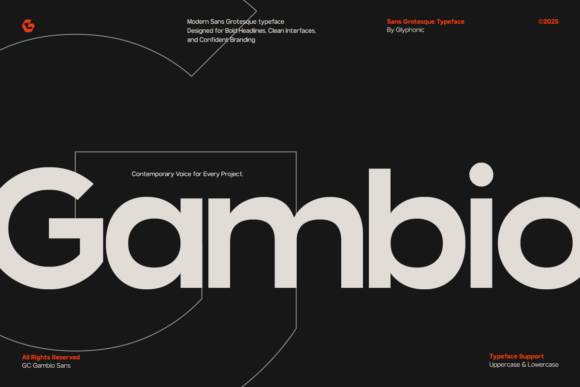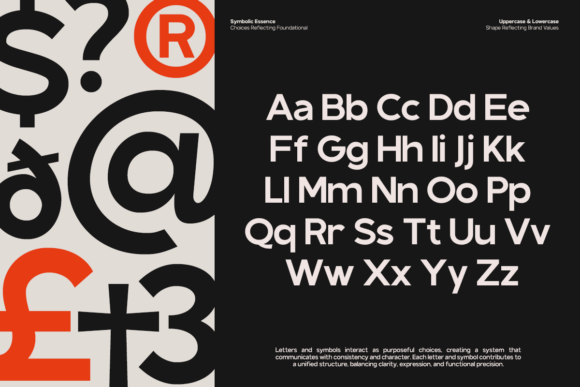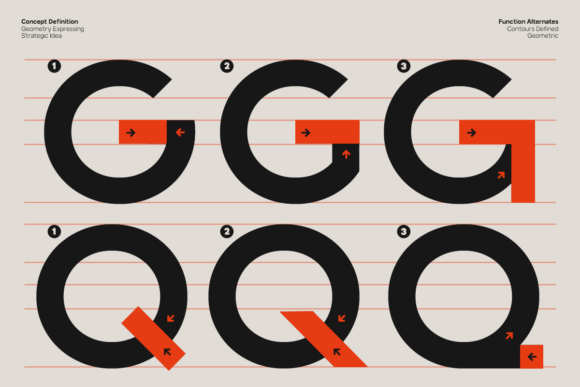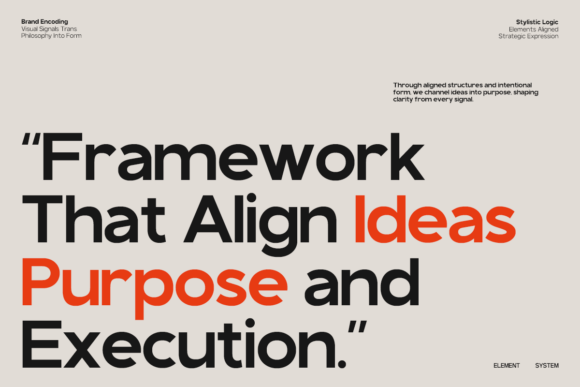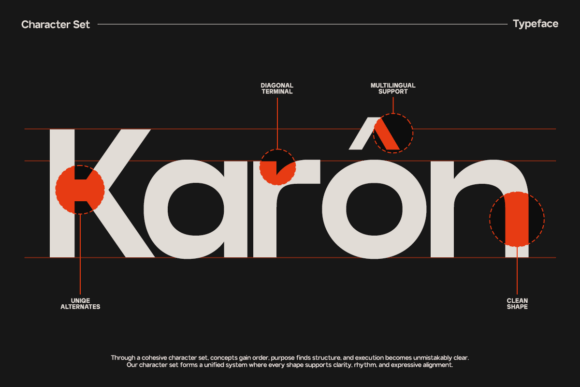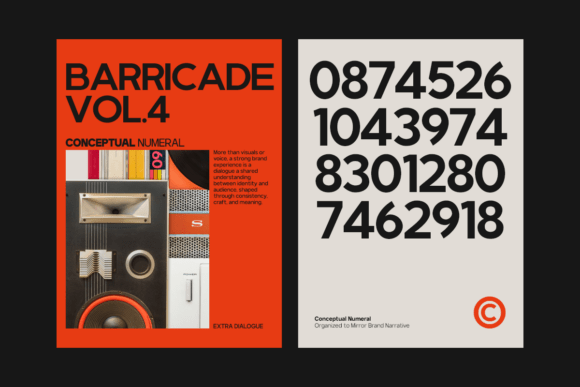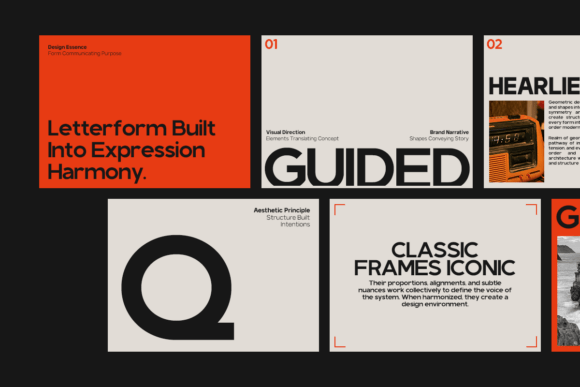
When Clarity Meets Elegance: Unlocking the Power of GC Gambio Font
Imagine you’re staring at a blank page, and the cursor is blinking impatiently, waiting for your next creative move. You want to convey a message, evoke emotions, and leave a lasting impression. But, how do you achieve that without overwhelming your audience? The answer lies in the perfect balance of clarity and elegance – qualities that the GC Gambio Font embodies.
Designed specifically for modern visual communication, GC Gambio Font is a clean and contemporary sans serif typeface that exudes professionalism and sophistication. Its refined proportions and neutral tone make it an ideal choice for branding, logo design, and editorial layouts. Whether you’re working on a digital project or a print media, GC Gambio Font ensures consistent performance and readability. By incorporating this versatile font into your design workflow, you’ll be able to enhance your typography and communicate your message with precision and style.
Gc Gambio Font Key Features
- Size: 6 styles, including Thin, Light, Regular, Medium, Bold, and Black, offering a range of font weights.
- Resolution: Supports high-resolution displays, ensuring crisp and clear text rendering.
- Unique Characteristics: Designed specifically for use in online stores, Gc Gambio Font is optimized for e-commerce applications.
- Language Support: Covers a wide range of languages, including Latin, Cyrillic, and Greek alphabets.
- Font Width: Offers a variable font width, allowing for more flexibility in design and layout.
Gc Gambio Font Review
First off, let’s talk about what I liked about Gc Gambio Font ✨. I found it to be quite versatile and easy to use. The font family includes a wide range of weights, from light to bold, making it perfect for various design projects. The font also has a clean and modern look that’s great for digital products, such as websites and mobile apps.
- Multiple weights for flexibility
- Clean and modern design
- Easy to use and customize
However, there are a few limitations to consider ⚠️. The font doesn’t come with a lot of extra features, such as extended language support or unique ornaments. Additionally, some users may find the font a bit too basic or generic. It’s not a bad thing, but it’s worth considering if you’re looking for a more unique font to make a statement.
- Limited language support
- No unique ornaments or decorations
- Might be too basic for some users
Overall, I think Gc Gambio Font is a solid choice for designers who want a clean and modern font without any frills. It’s easy to use and works well for a variety of design projects. Just be aware of its limitations and consider your design goals before making a decision.
Tips for Getting the Most Out of Gc Gambio Font
Use Gc Gambio Font to add a touch of elegance and sophistication to your designs.
Experiment with different font sizes and styles to achieve the desired effect.
Combine Gc Gambio Font with other fonts to create a unique and eye-catching look.
Use Gc Gambio Font for:
Branding and logos
Business cards and brochures
Alternatives to Gc Gambio Font
Montserrat is a modern sans-serif font designed for digital use. It is clean, simple, and highly legible, making it perfect for body text and titles. Use Montserrat for projects that require a sleek and modern look.
Comparison to Gc Gambio Font: Montserrat has a more geometric and futuristic feel compared to the rounded and playful Gc Gambio Font. While Gc Gambio Font is more suitable for creative and whimsical projects, Montserrat is ideal for corporate and tech-related designs.
Ostrich Sans is a sans-serif font with a unique, energetic feel. It is highly customizable and has a wide range of weights, making it suitable for various design projects. Use Ostrich Sans for projects that require a bold and eye-catching font.
Comparison to Gc Gambio Font: Ostrich Sans has a more rugged and edgy feel compared to the smooth and rounded Gc Gambio Font. While Gc Gambio Font is more suitable for playful and creative projects, Ostrich Sans is ideal for bold and attention-grabbing designs.
The Gc Gambio Font family includes 12 styles, ranging from light to bold, with corresponding italic and bold-italic variations. These styles provide designers with a wide range of options to suit different design needs. The font family includes: